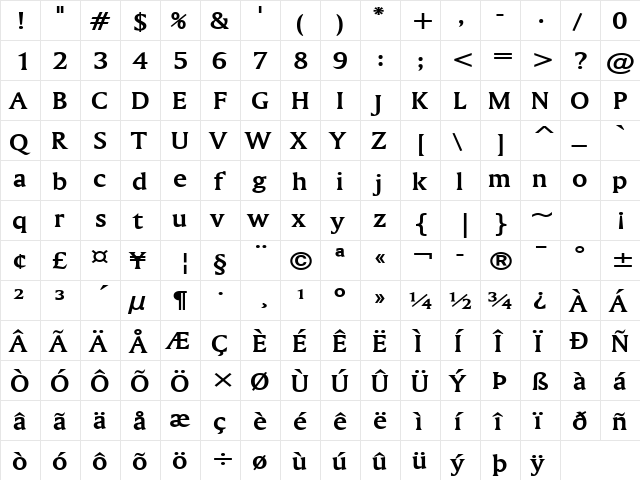
Ameretto Wide Bold
Design Context for Ameretto Wide Typeface
Ameretto Wide is a composed and adaptable typeface that performs quietly and consistently across a wide range of design contexts. Its bold stroke weight gives it real presence on the page.